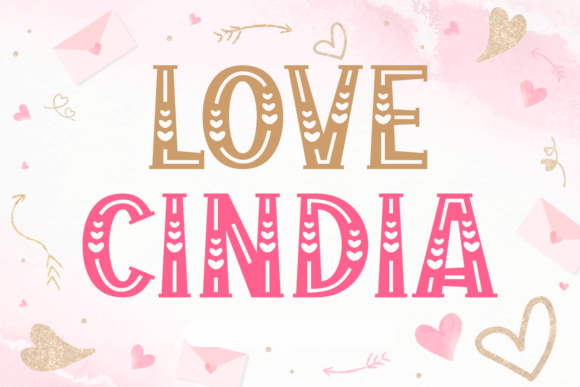
Get ready to fall in love with Love Cindia, the most enchanting decorative font that will sweep you off your feet. This exquisite creation by Wankriss is a true masterpiece, meticulously crafted to capture the essence of romance and charm. With its playful heart-shaped embellishments adorning each letter, Love Cindia possesses an irresistible charm that will leave you spellbound.
Dive into a world of creativity and let Love Cindia transform your designs into captivating expressions of love. Its intricate details and graceful curves will add a touch of elegance and sophistication to any project, making it the perfect choice for wedding invitations, love letters, Valentine's Day cards, and any other occasion that calls for a sprinkle of romance.
Love Cindia's versatility extends beyond its amorous appeal. Its playful nature makes it an ideal font for children's books, whimsical posters, and fun and lighthearted designs. Let your imagination run wild as you explore the endless possibilities that await you with Love Cindia.
Embrace the beauty of love and let Love Cindia be your creative companion. Its user-friendly format ensures seamless integration into your design software, making it a breeze to incorporate this enchanting font into your projects. Unleash your creativity and let Love Cindia work its magic, transforming your designs into captivating masterpieces that will leave a lasting impression.